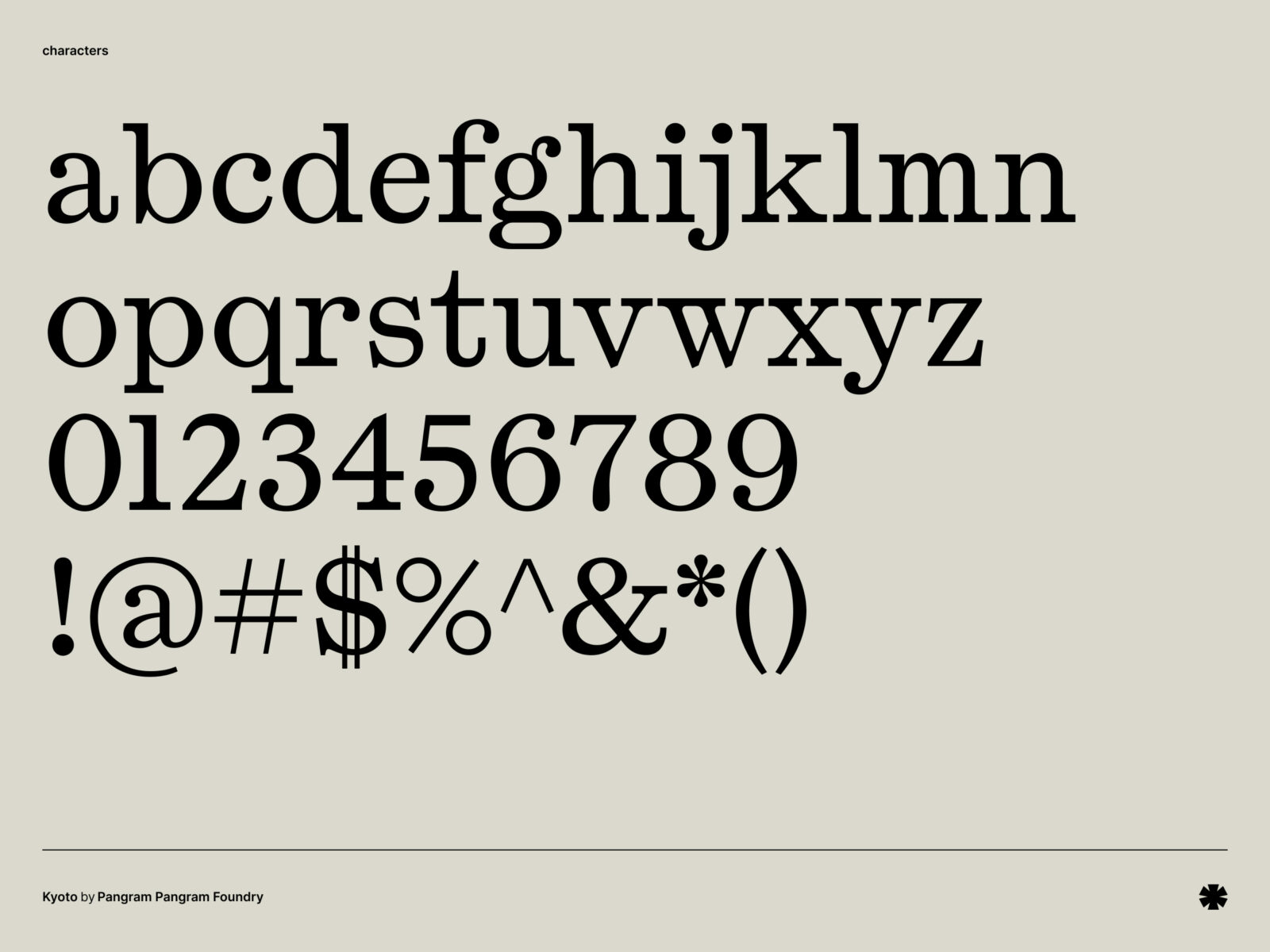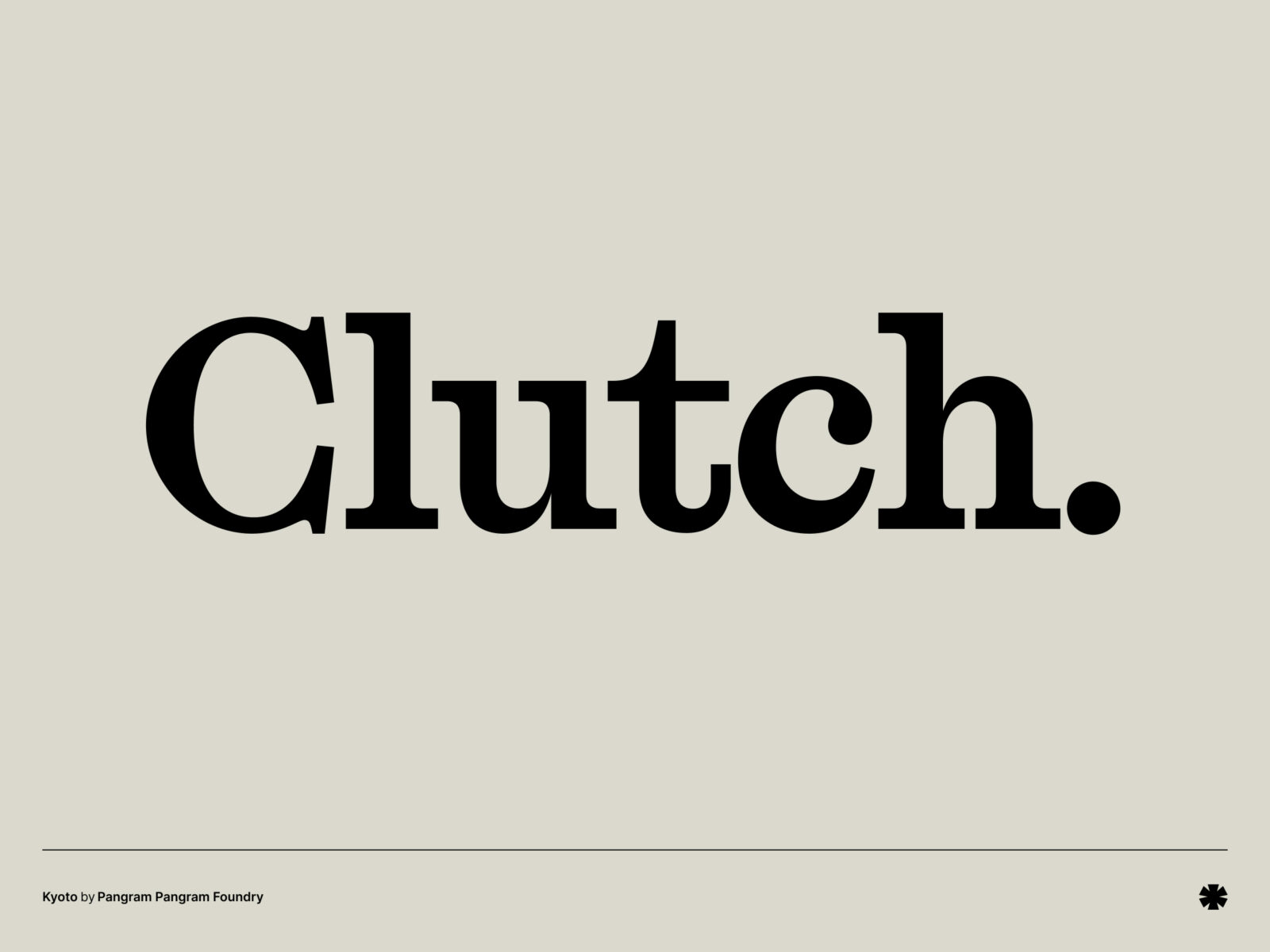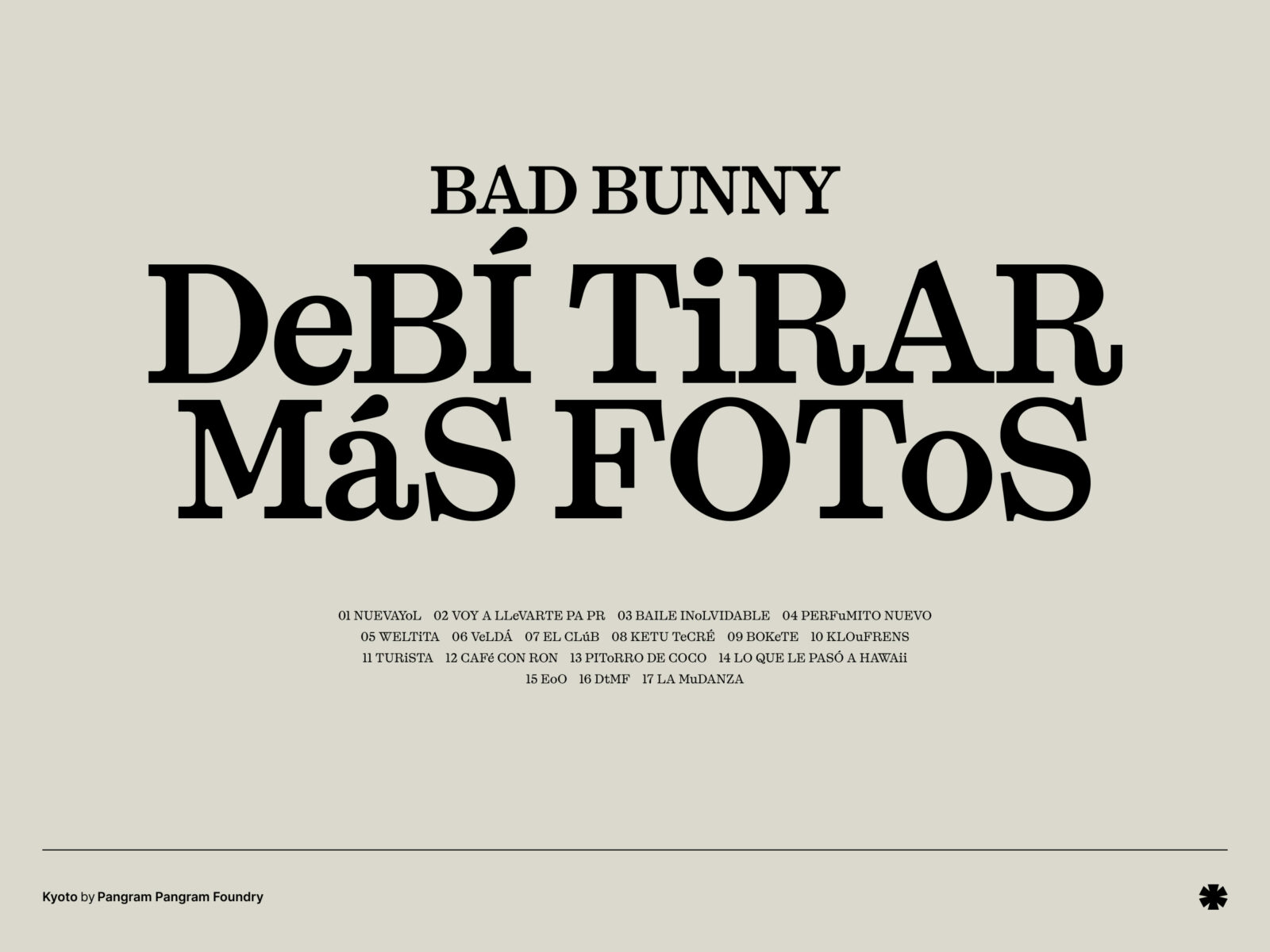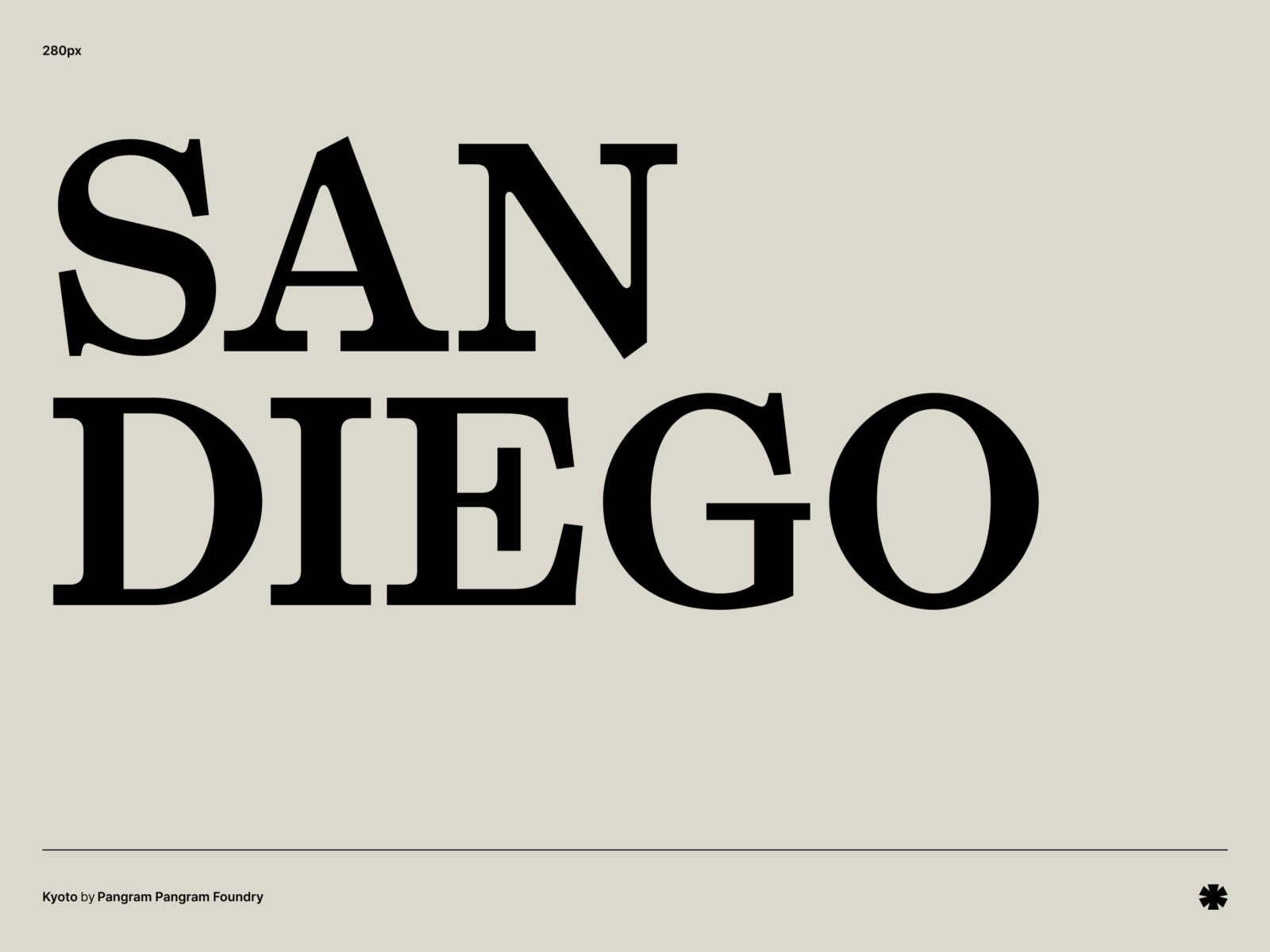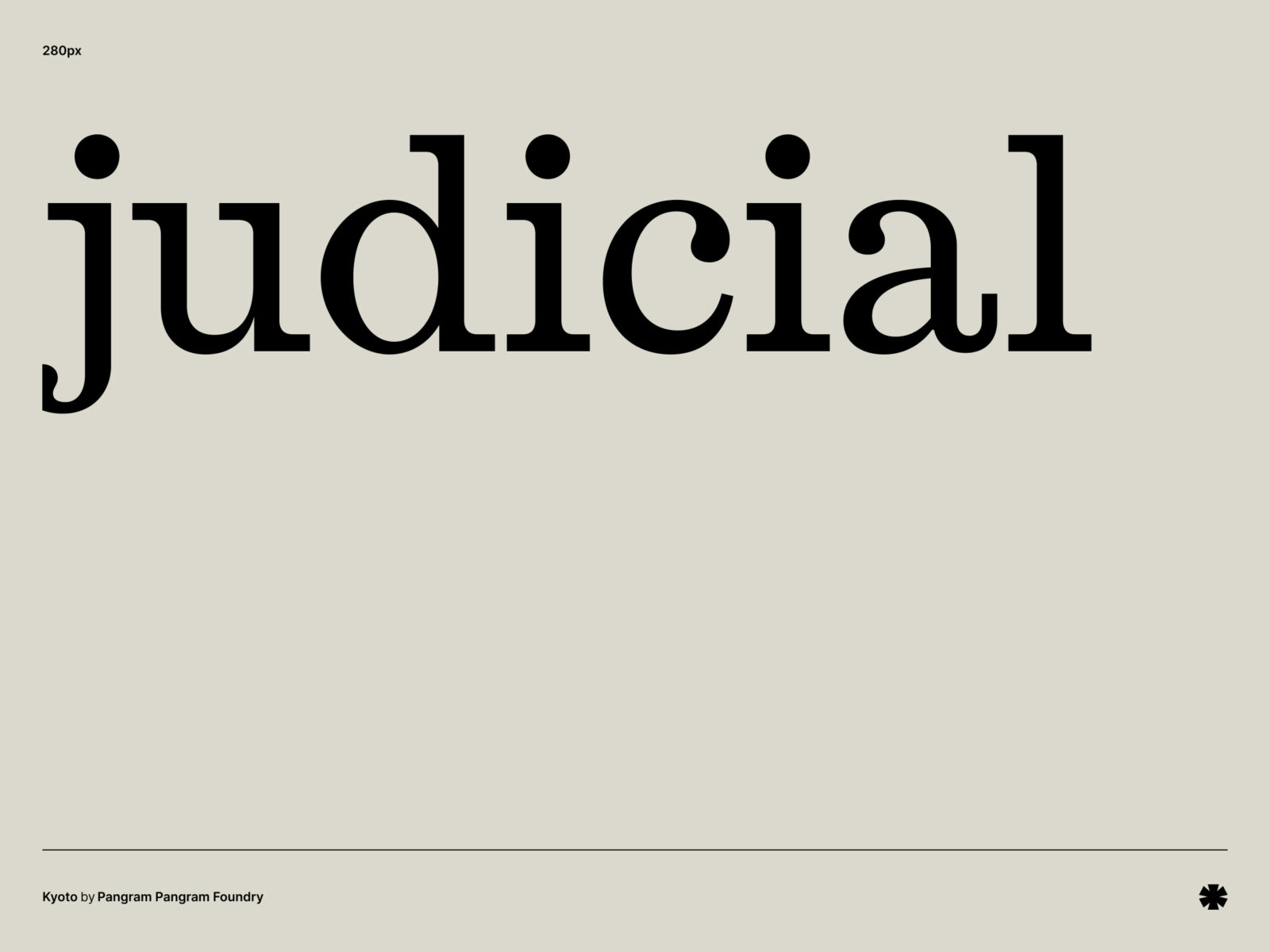
Kyoto is heavily inspired by the Japanese type styles with chunky shapes and soft details that give headlines a modern, eye‑catching look without feeling too serious or hard to read.
Pangram Foundry
Caio Kondo, Mat Desjardins, Francesca Bolognini